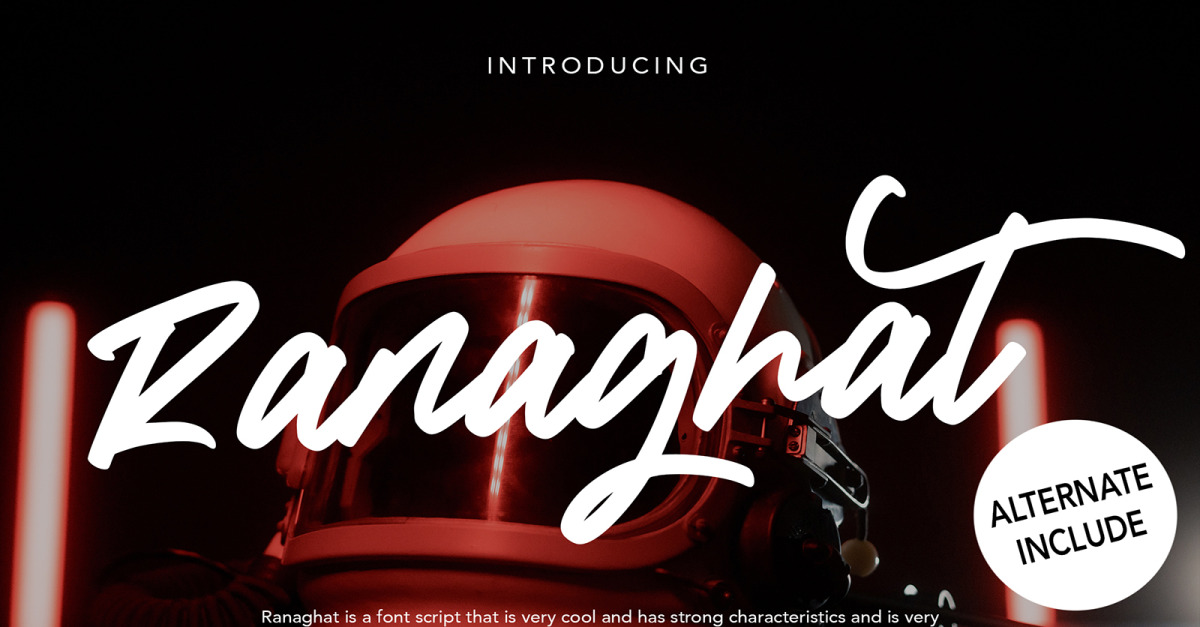
Ranaghat | Handwritten Cursive Font
**Ranaghat | Handwritten Script Font** with a calligraphy style, So beautiful on invitation like greeting cards, branding materials, business cards, quotes, posters, and more!